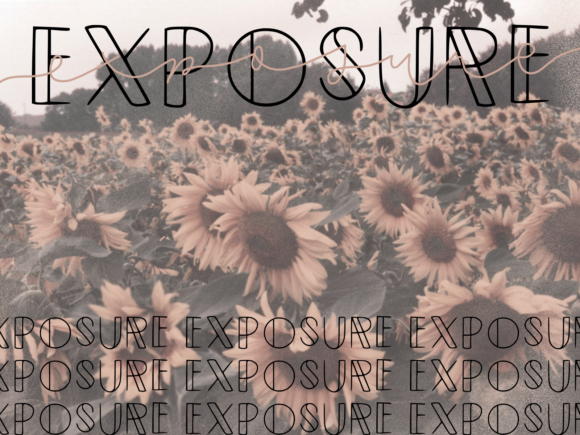
Step into the realm of artistic expression and let your words dance with unparalleled charisma, courtesy of Exposure Font, the ultimate script typeface that will ignite your creative soul. This exquisite font family, meticulously crafted by the visionary minds at fonts.ness, is a symphony of elegance, presenting the perfect fusion of artistic flair and contemporary aesthetics.
With Exposure Font, the possibilities are limitless. Whether you're weaving enchanting tales in your novels, designing captivating logos that demand attention, or crafting heartfelt invitations that leave a lasting impression, this font will elevate your creations to new heights. Its graceful curves and sophisticated details evoke an air of timeless charm, ensuring your designs exude an aura of sophistication and grace.
Exposure Font is not merely a collection of letters; it is an orchestra of visual artistry, transforming ordinary words into captivating melodies that resonate with emotional depth. Its versatility knows no bounds, effortlessly adapting to a myriad of projects. Bring life to your web designs with its enchanting allure, captivate audiences in your presentations with its commanding presence, or create invitations that evoke an air of exclusivity and refinement.
The Exposure Font family is a testament to the transformative power of typography. With its ability to evoke emotions and convey messages with unparalleled eloquence, it is the perfect choice for those who seek to leave an indelible mark on the world. Embrace the beauty of written expression and elevate your designs to new realms of elegance and sophistication.